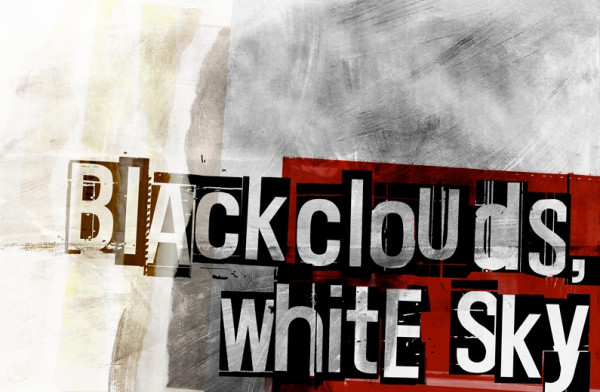
Black Clouds, White Sky Font
Black Clouds, White Sky Font, this font was created for all forms of business and branding such as clothing, logos, skate boards and others according to your needs.